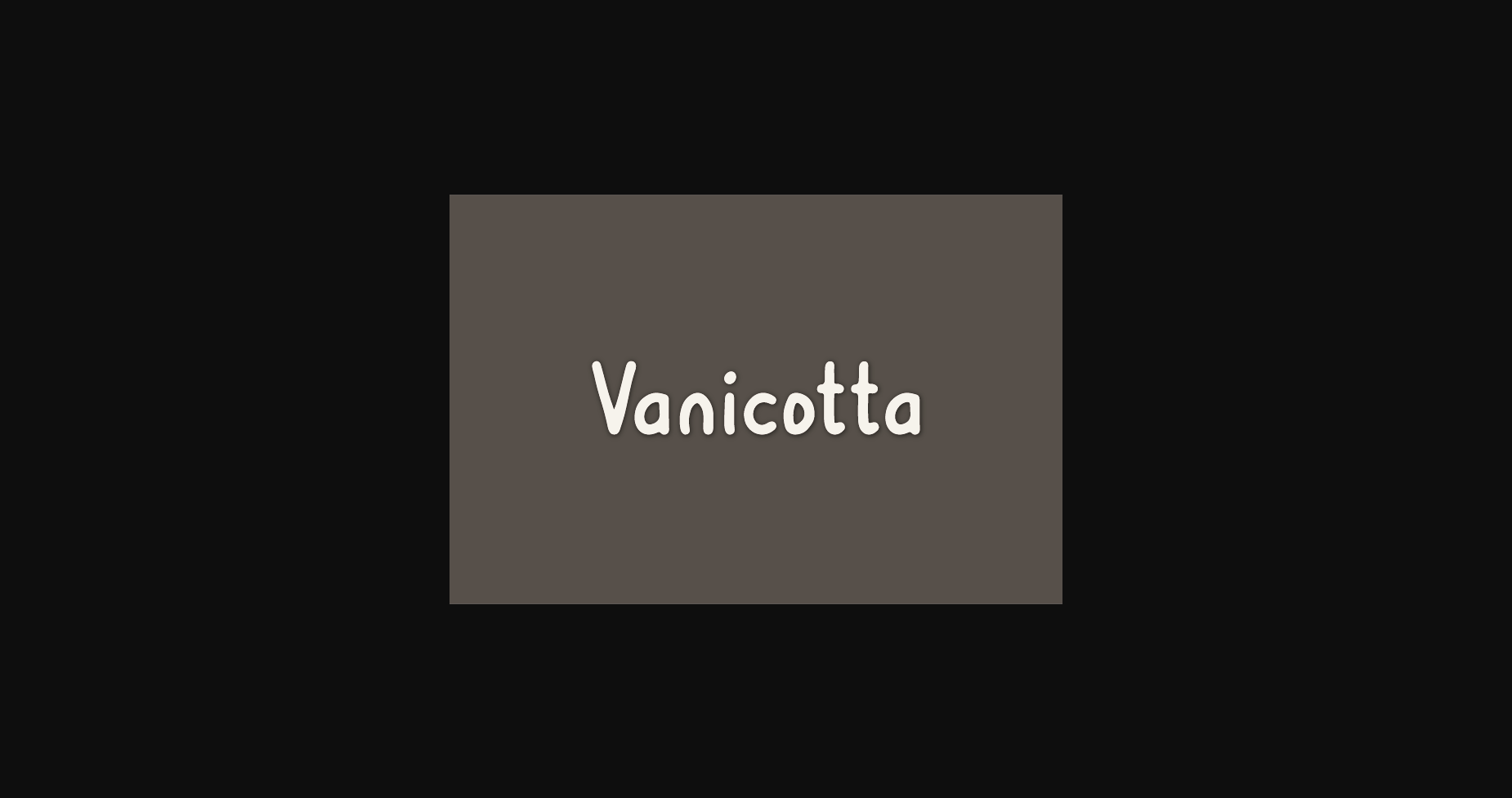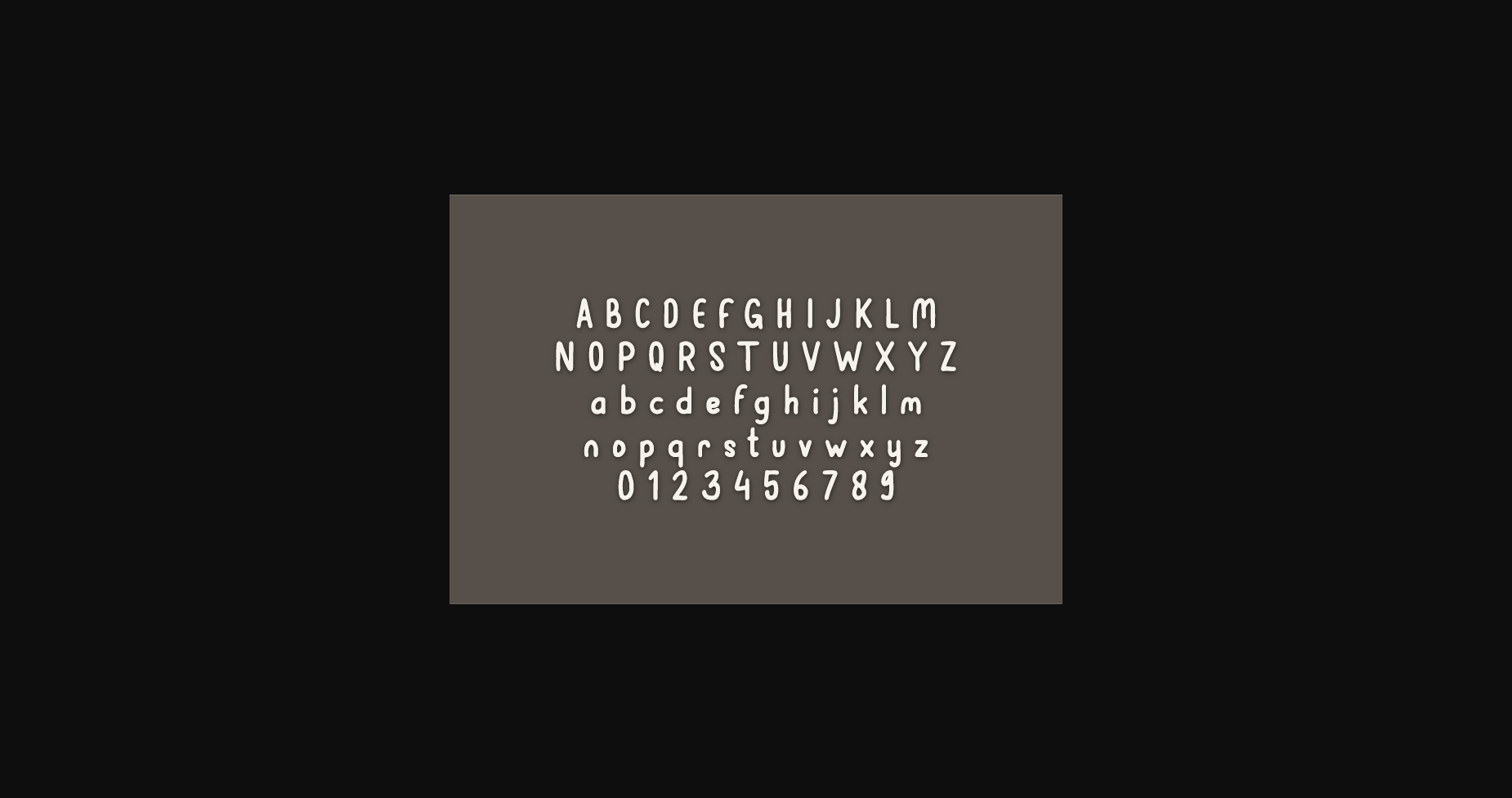
About Vanicotta Font
Vanicotta is a simple and minimalist sans serif font, made without changing a single node in each character’s indentation. This makes this font interesting and unique. This lovely typeface is perfect for quotes, notes, tees, or anything else.